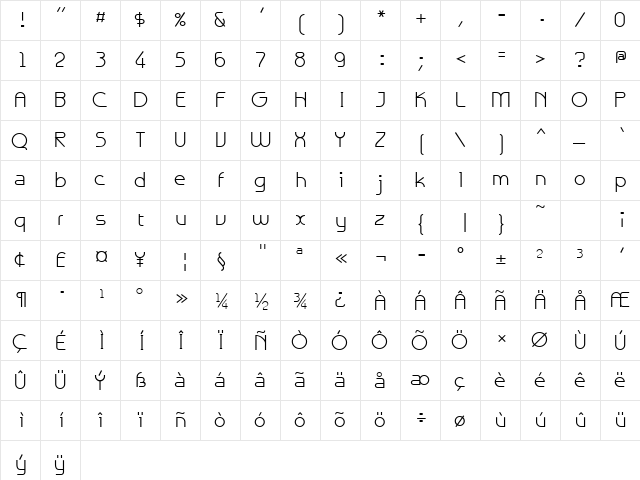
Galexica Plain
Design Context for Galexica Typeface
Galexica takes a measured approach to typography — its balanced proportions and neutral character make it a reliable workhorse for both digital and print work.